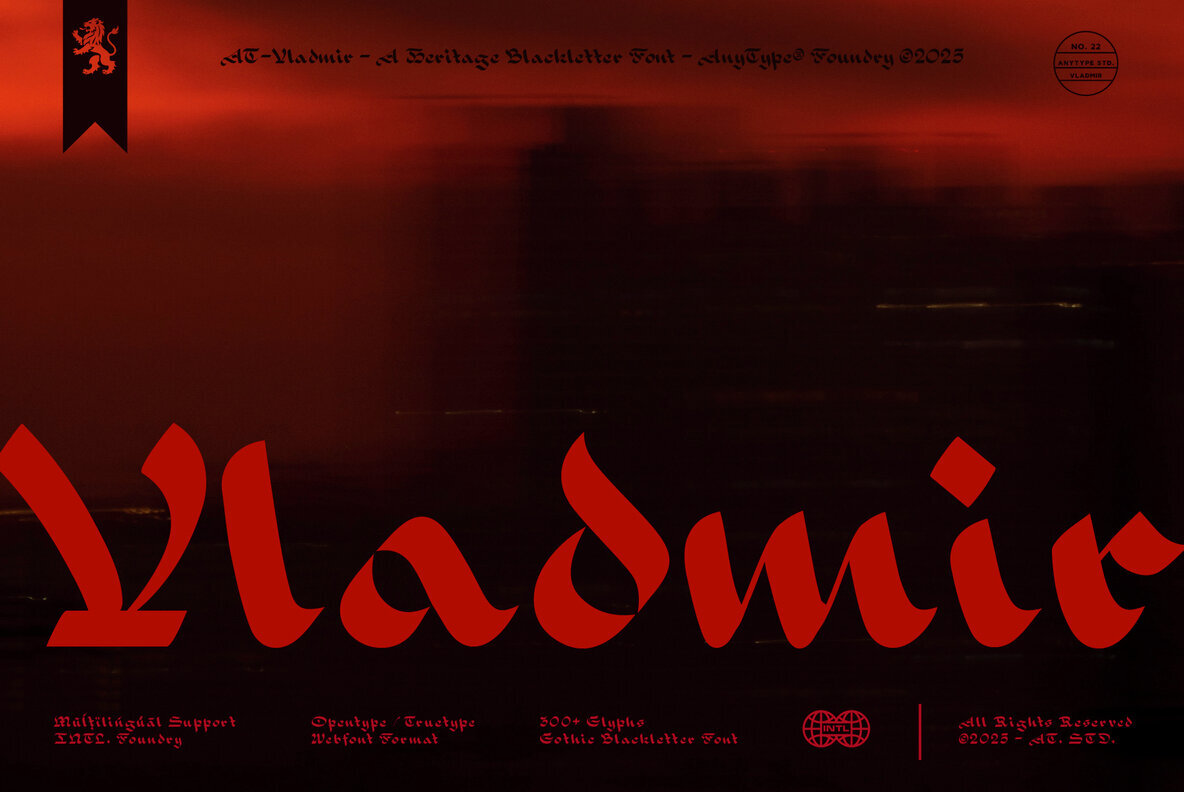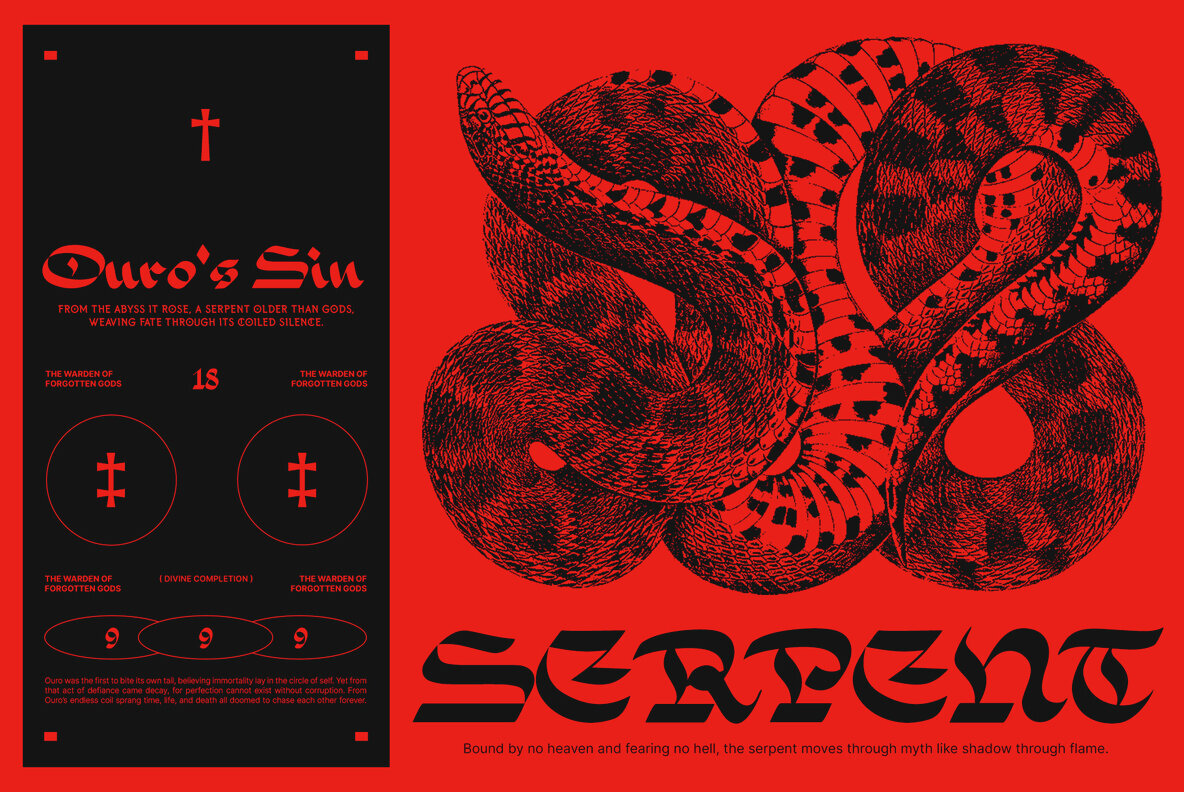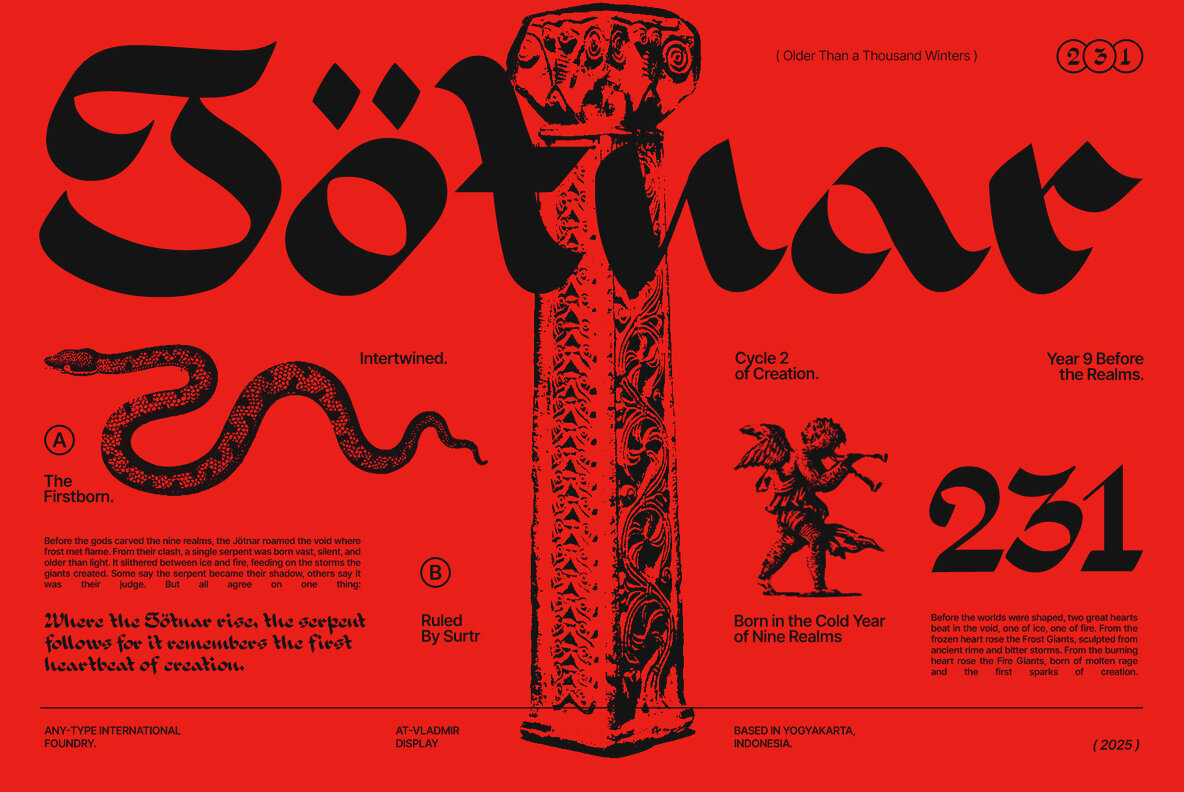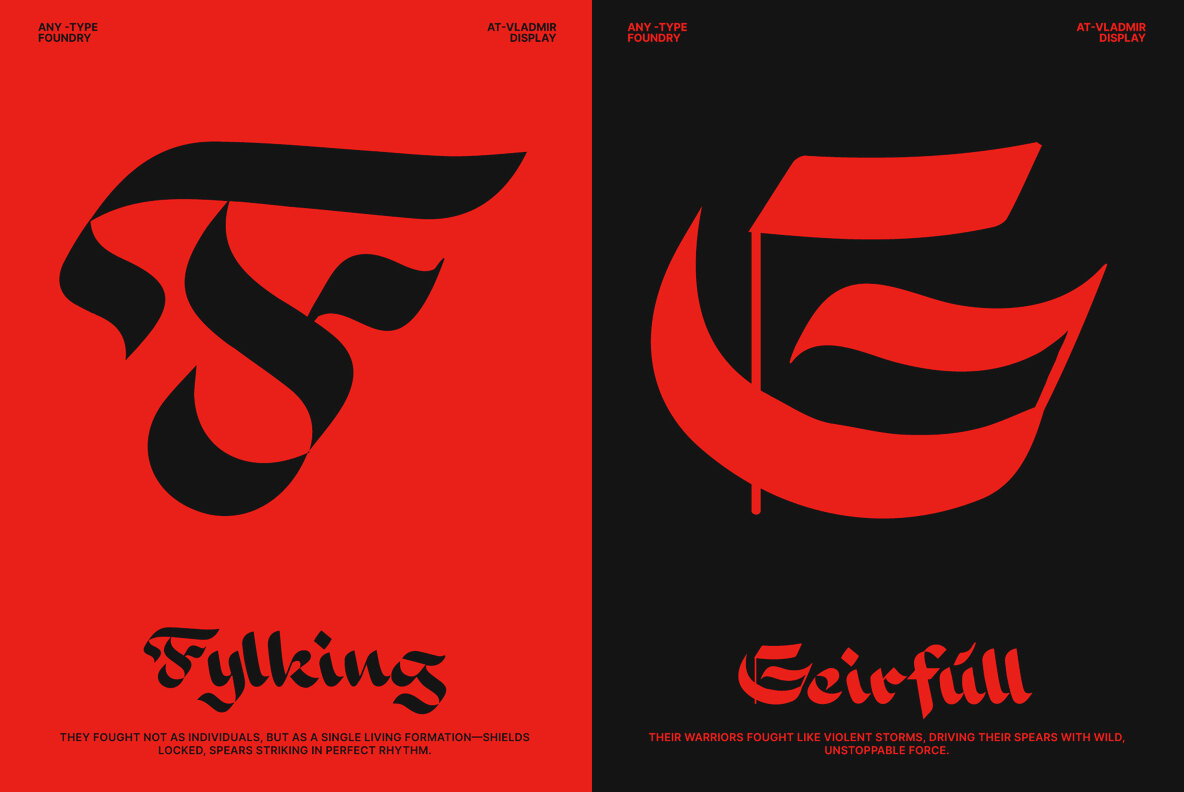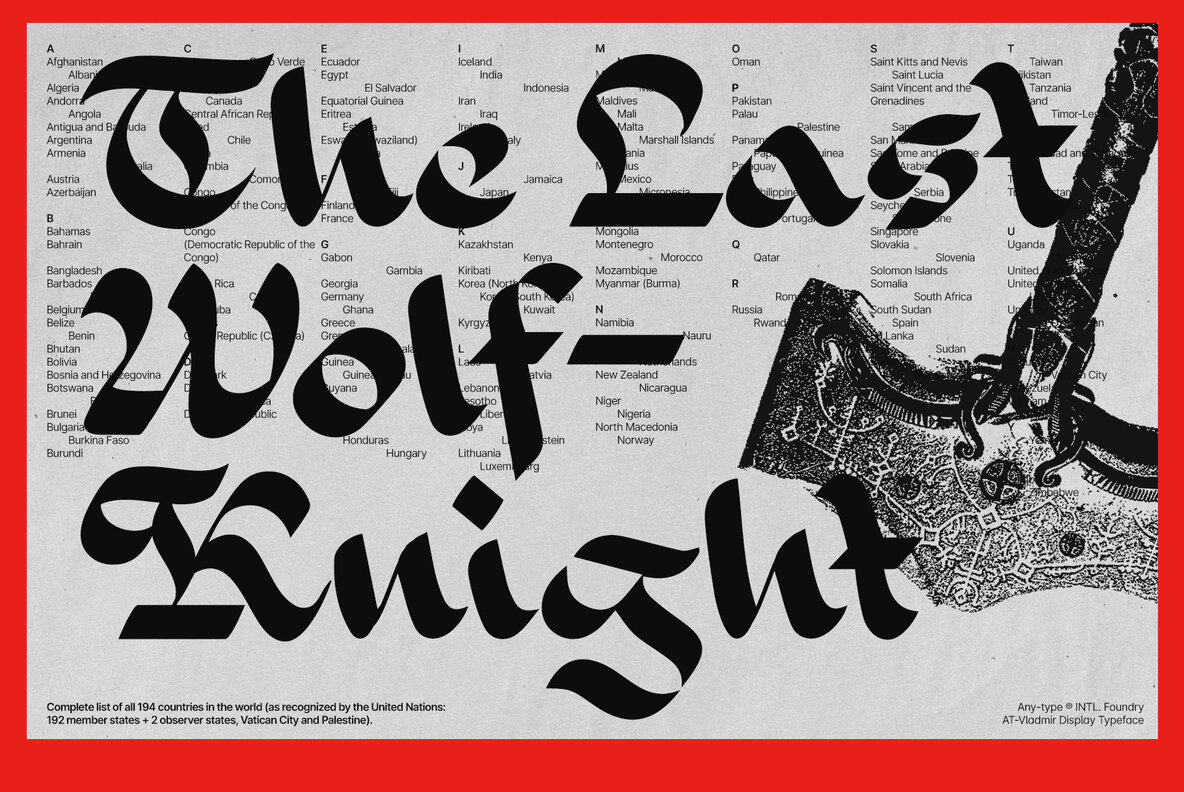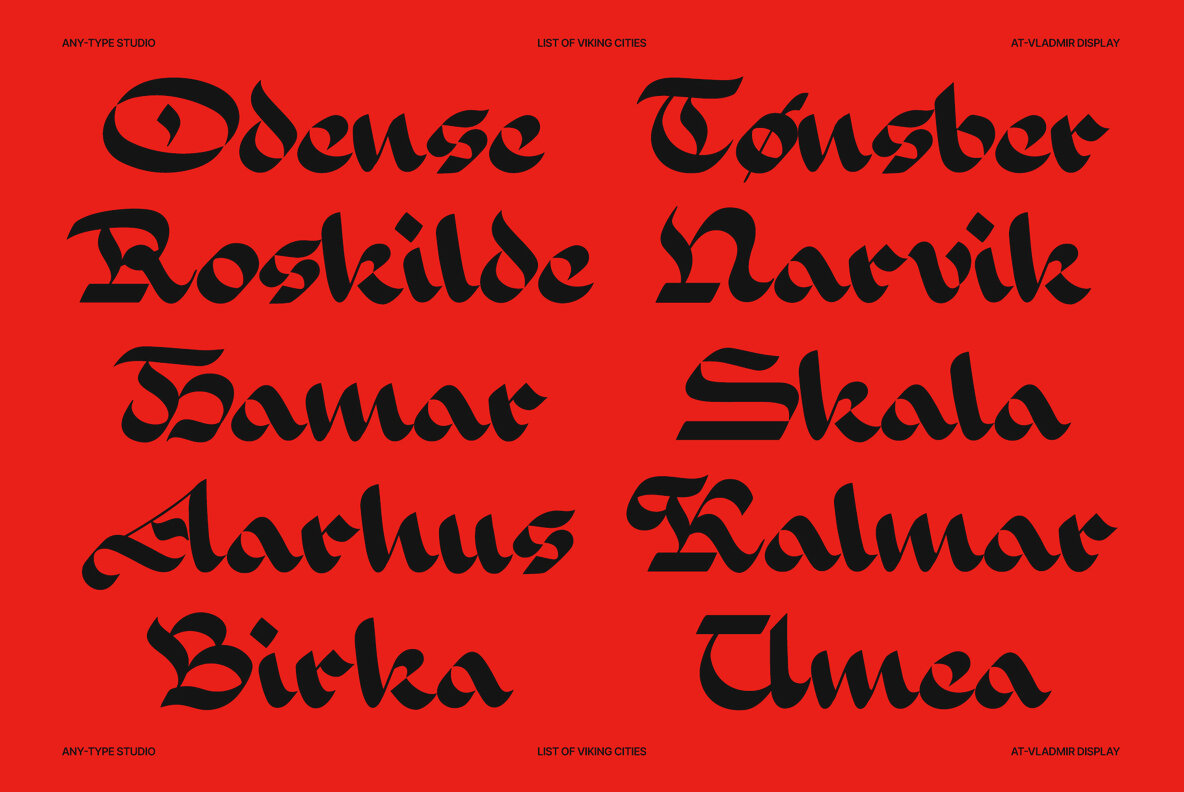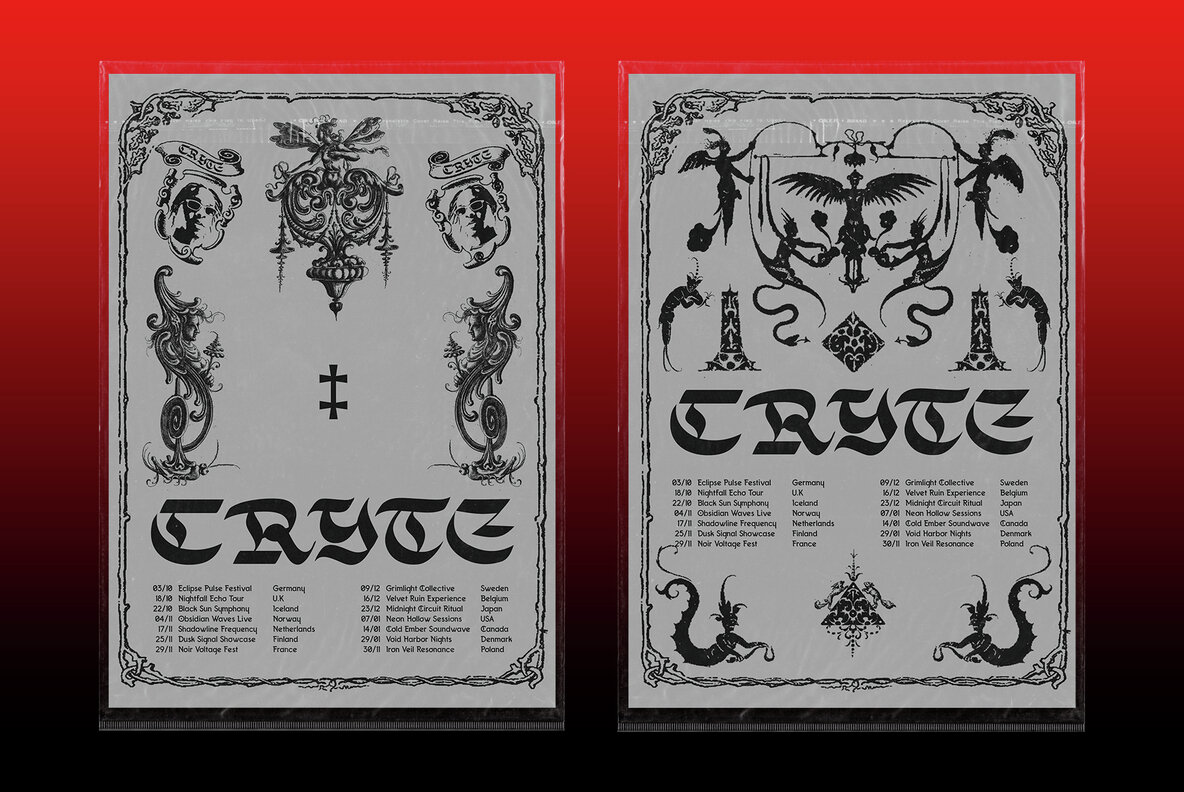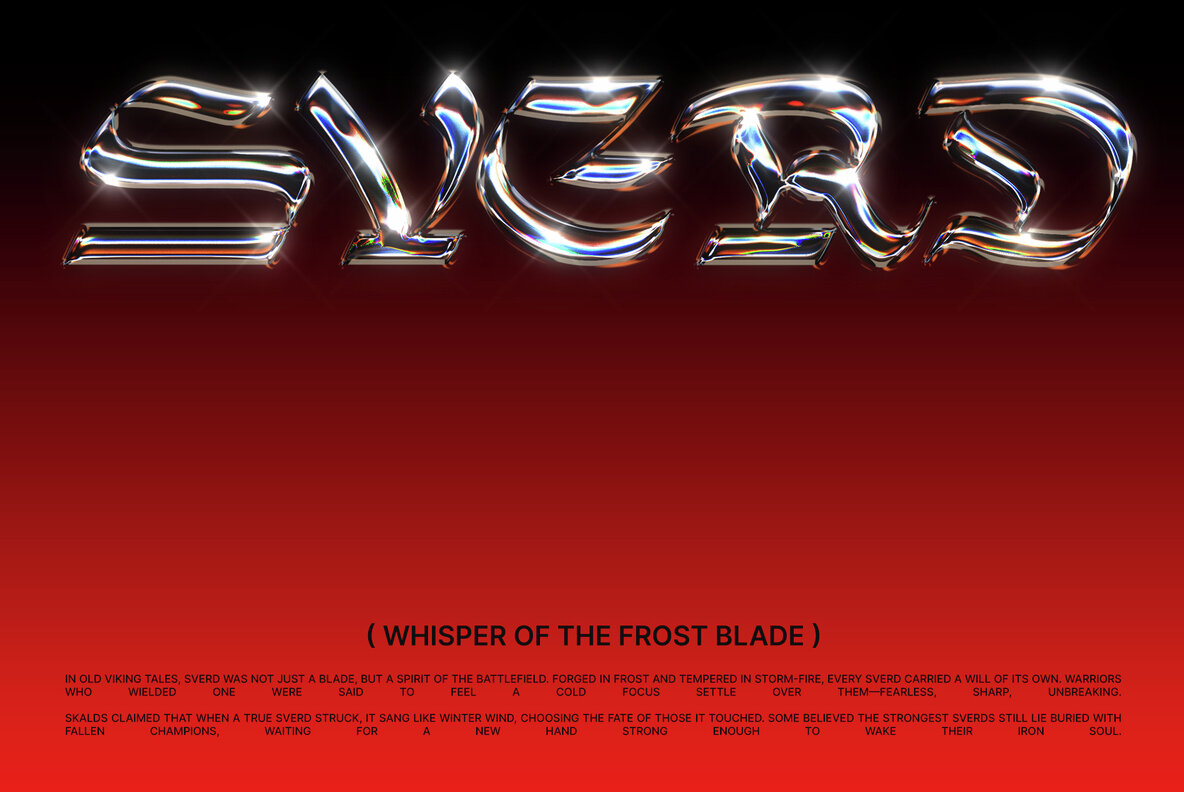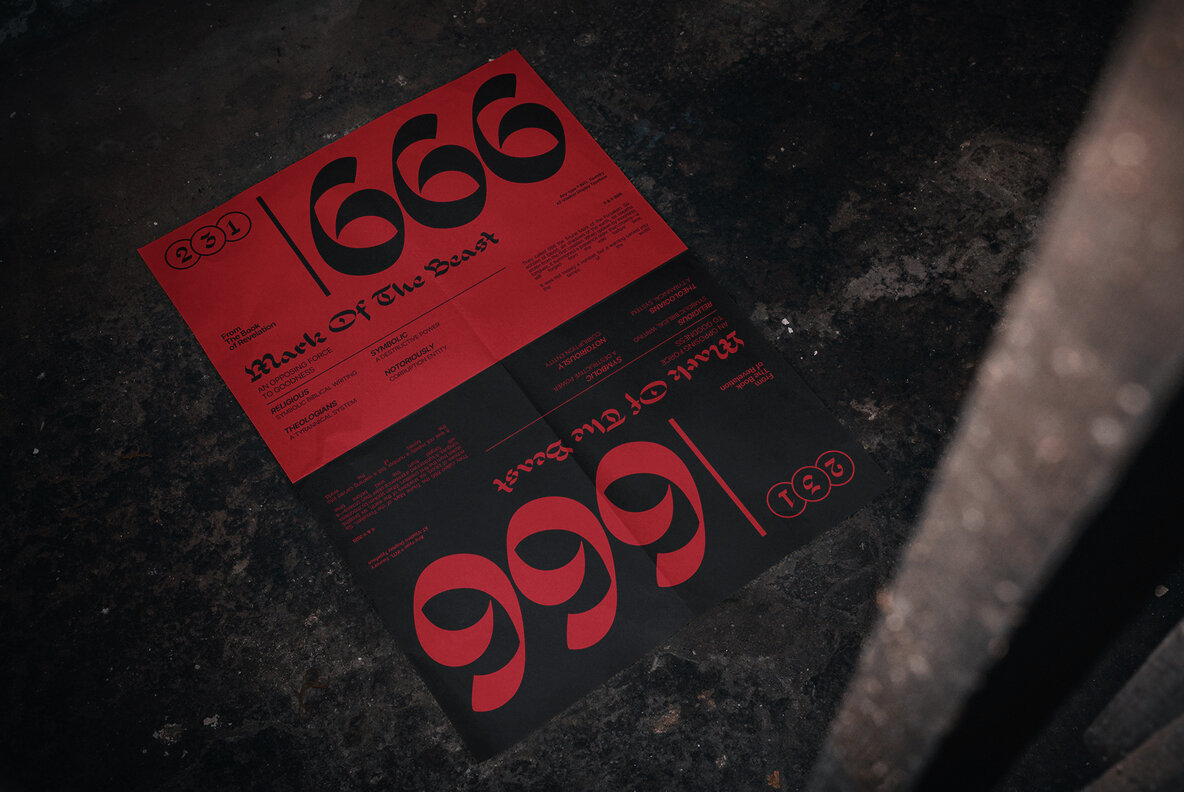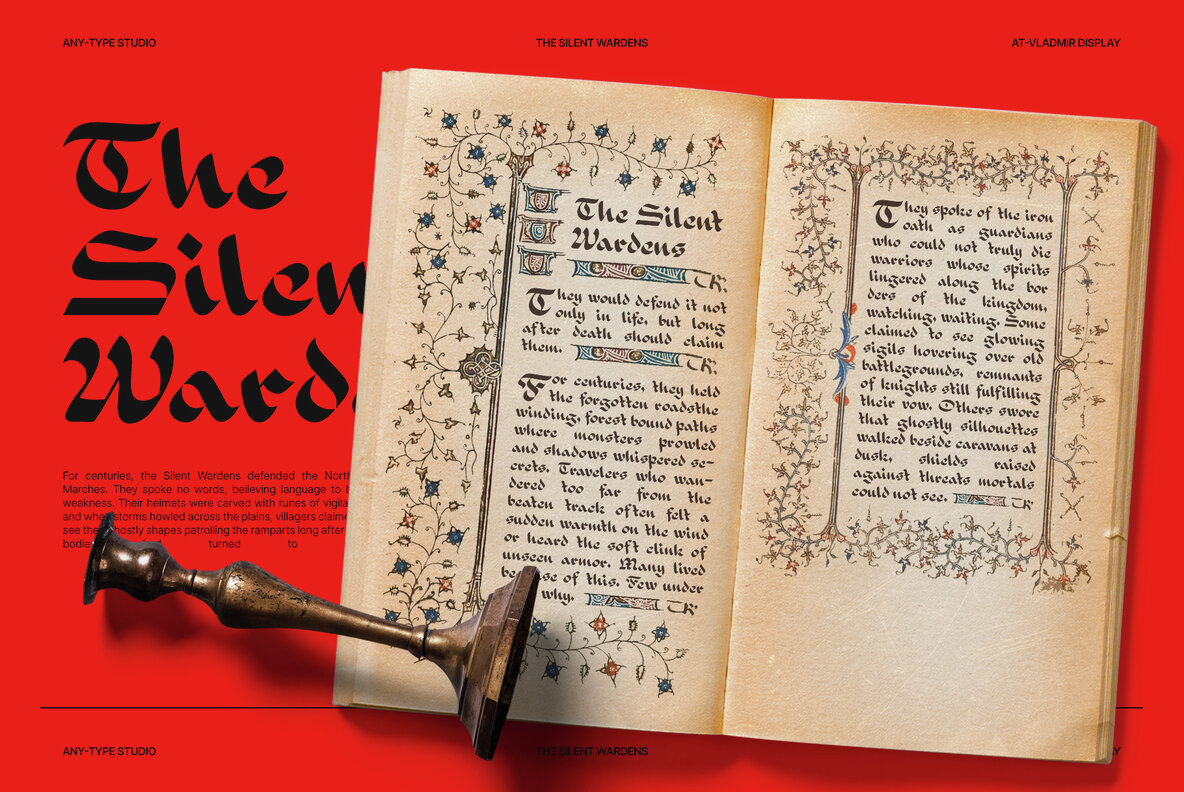
AT-Vladimir Font
AT Vladmir Regular
AT-Vladimir draws its bold character from medieval scripts, gothic calligraphy, and historic manuscripts. Each letter strikes a balance between sharp strokes, sweeping curves, and distinguished presence. Designed for projects that demand sophistication and a sense of ceremony, this typeface brings a powerful, refined voice to contemporary design. With over 300 glyphs and extensive multilingual support, AT-Vladimir adapts seamlessly to diverse applications. Meticulously crafted OpenType features provide added control for designers who need both style and utility. The blackletter design remains distinct and authentic while prioritizing clarity, making it suitable for branding, logos, book covers, posters, packaging, apparel, and tattoo creations.AT-Vladimir Blackletter Heritage Font